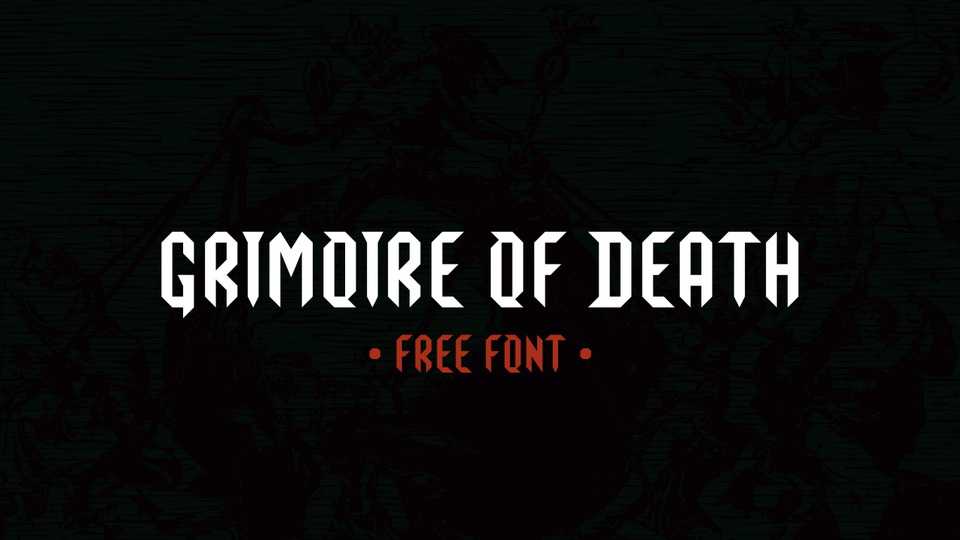
Download Grimoire Of Death font, a heavy metal typeface that’s sharp as a knife. With its blackletter shapes and brutal angles, Grimoire Of Death font is the perfect typeface to give your message a sense of power that will leave a lasting impression.